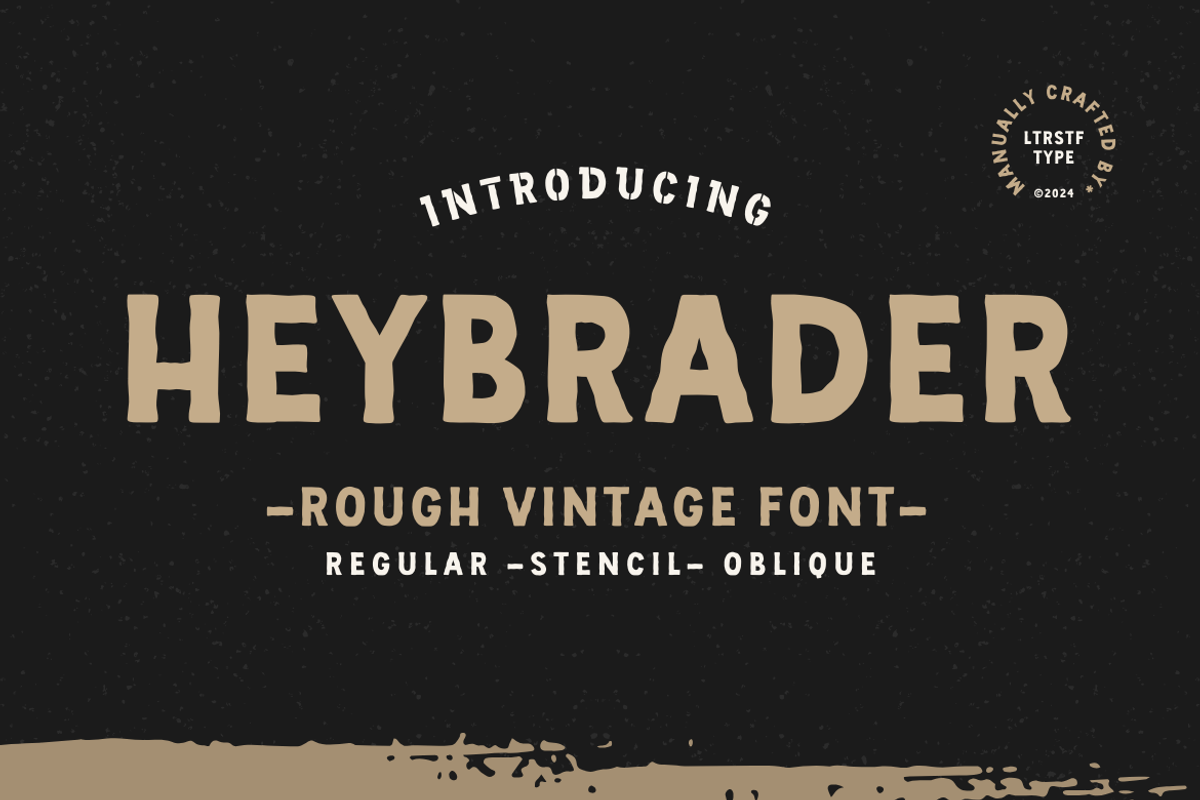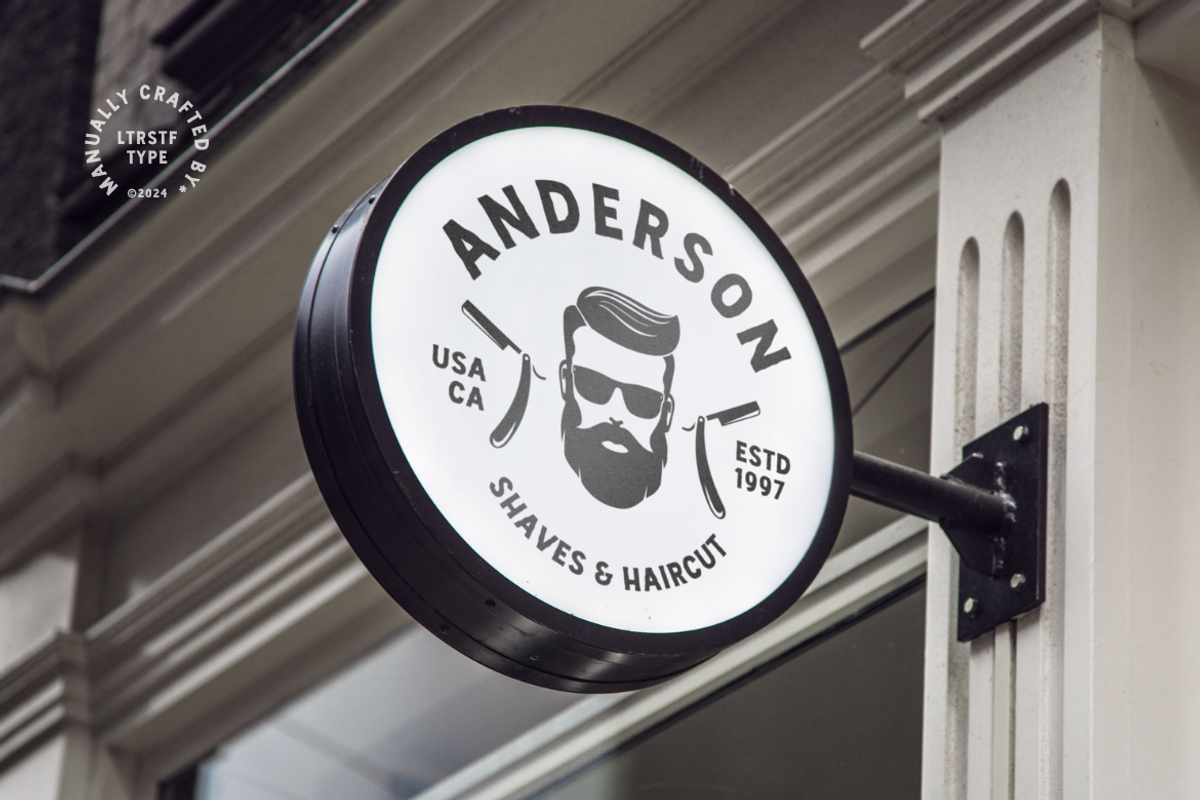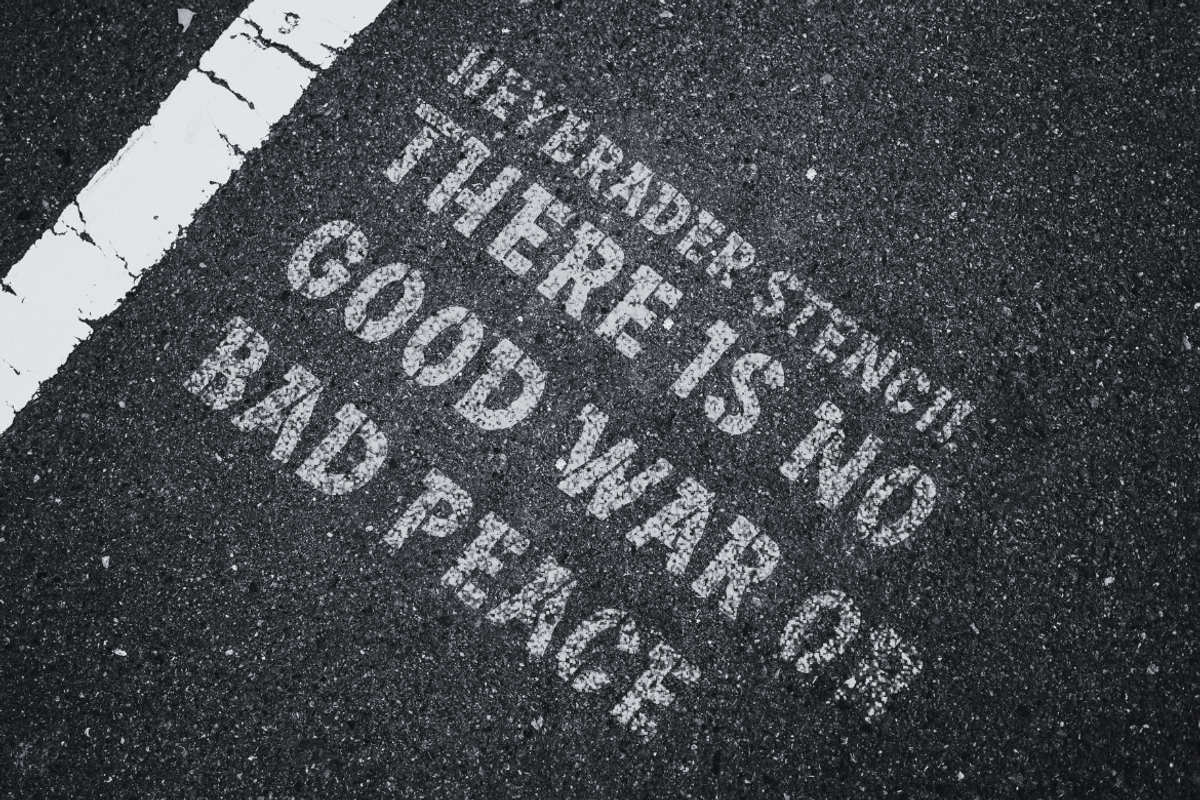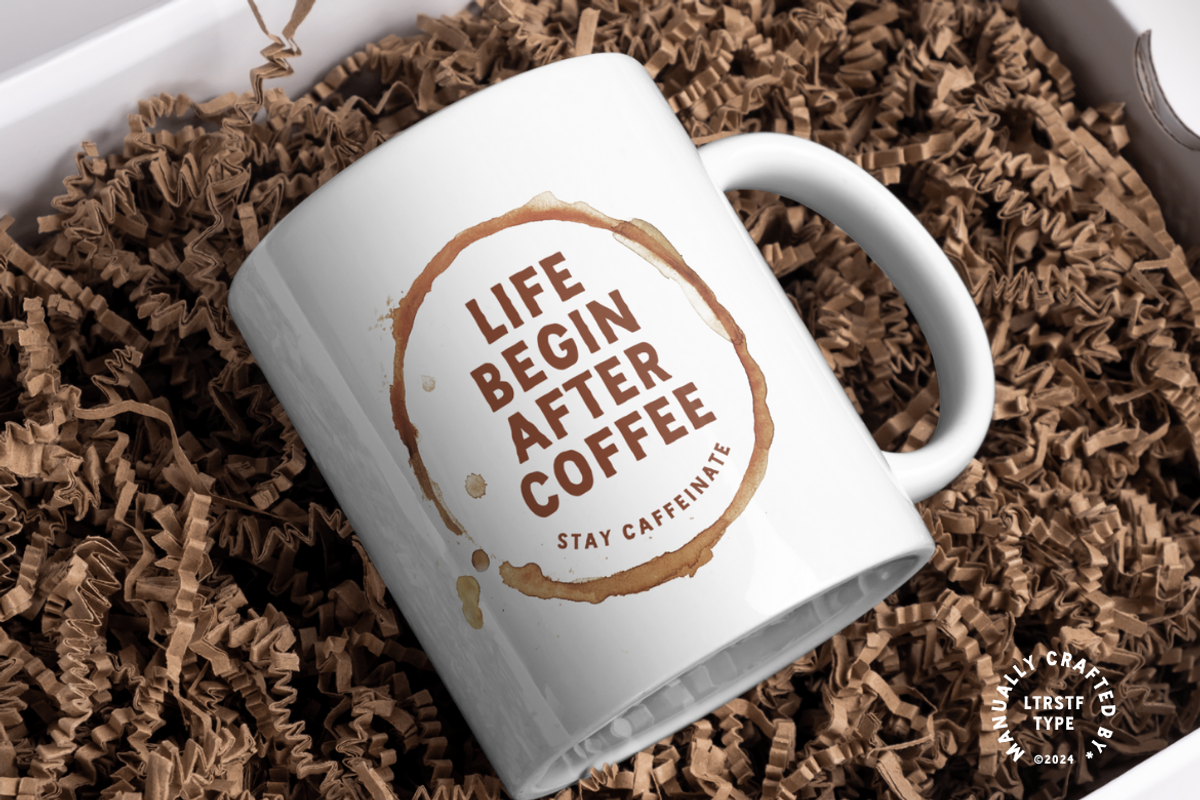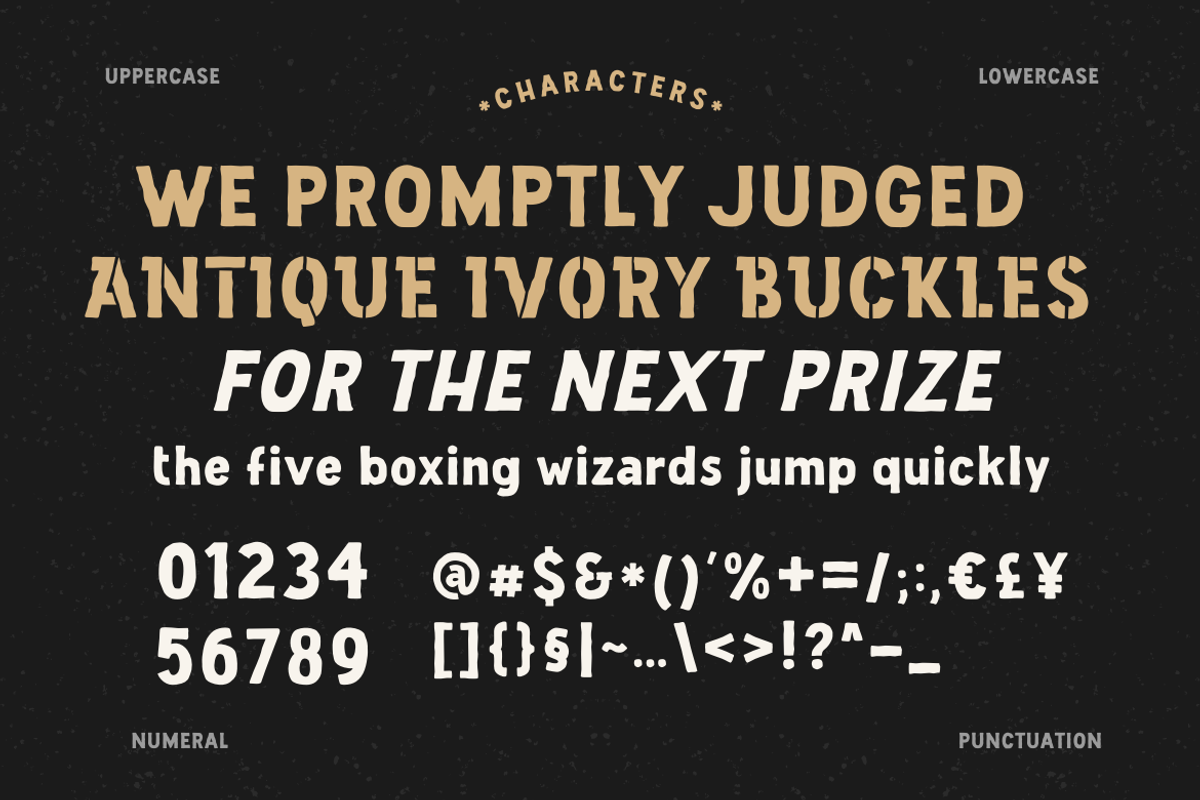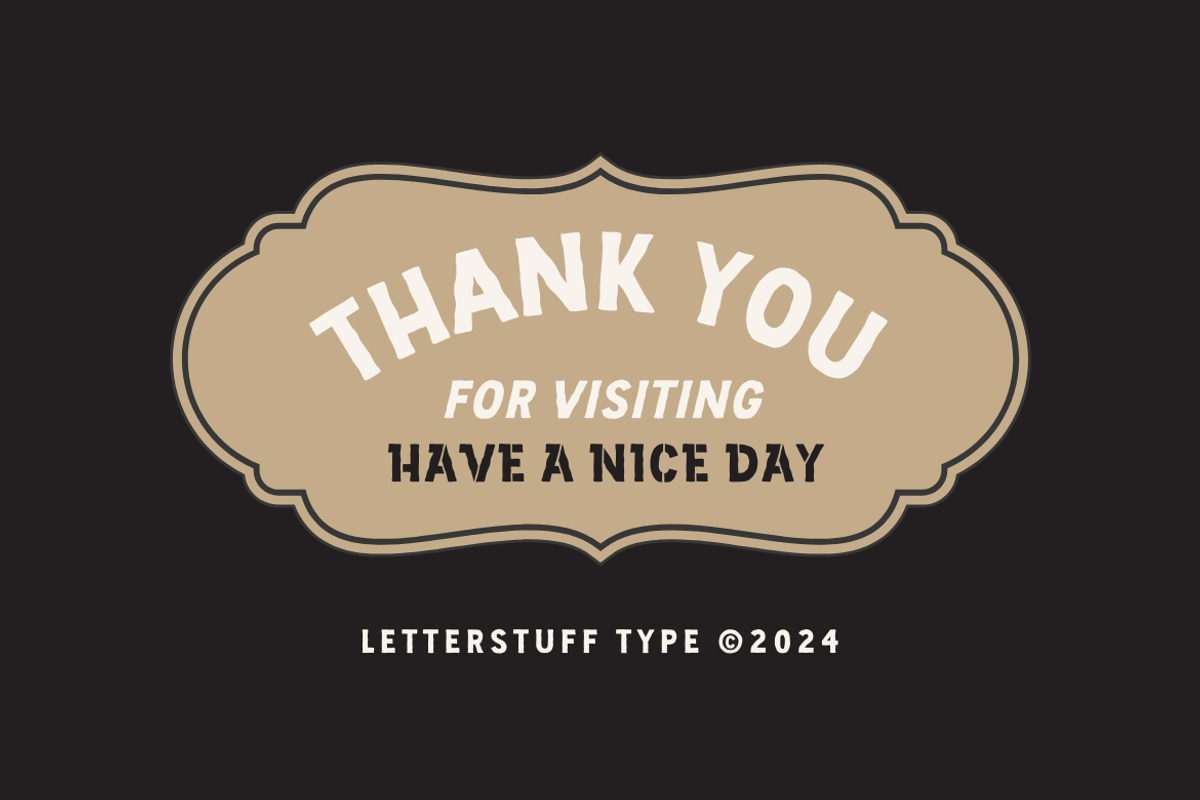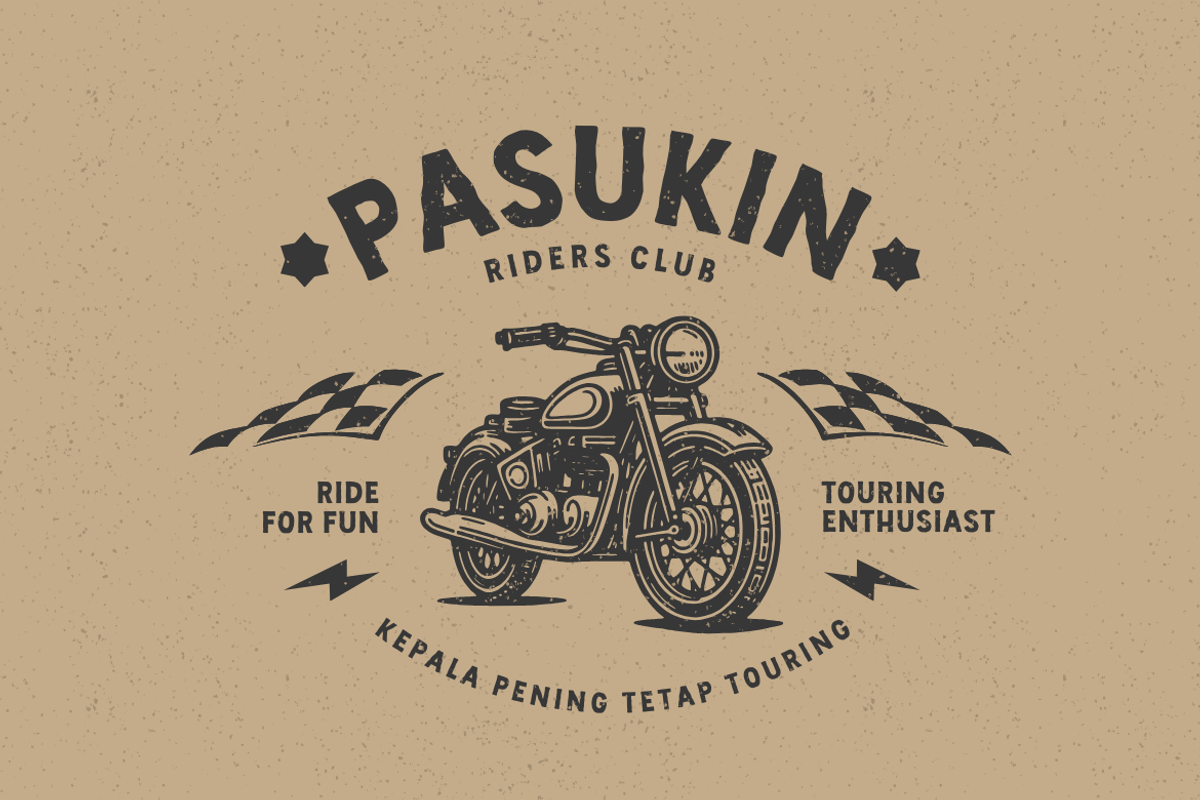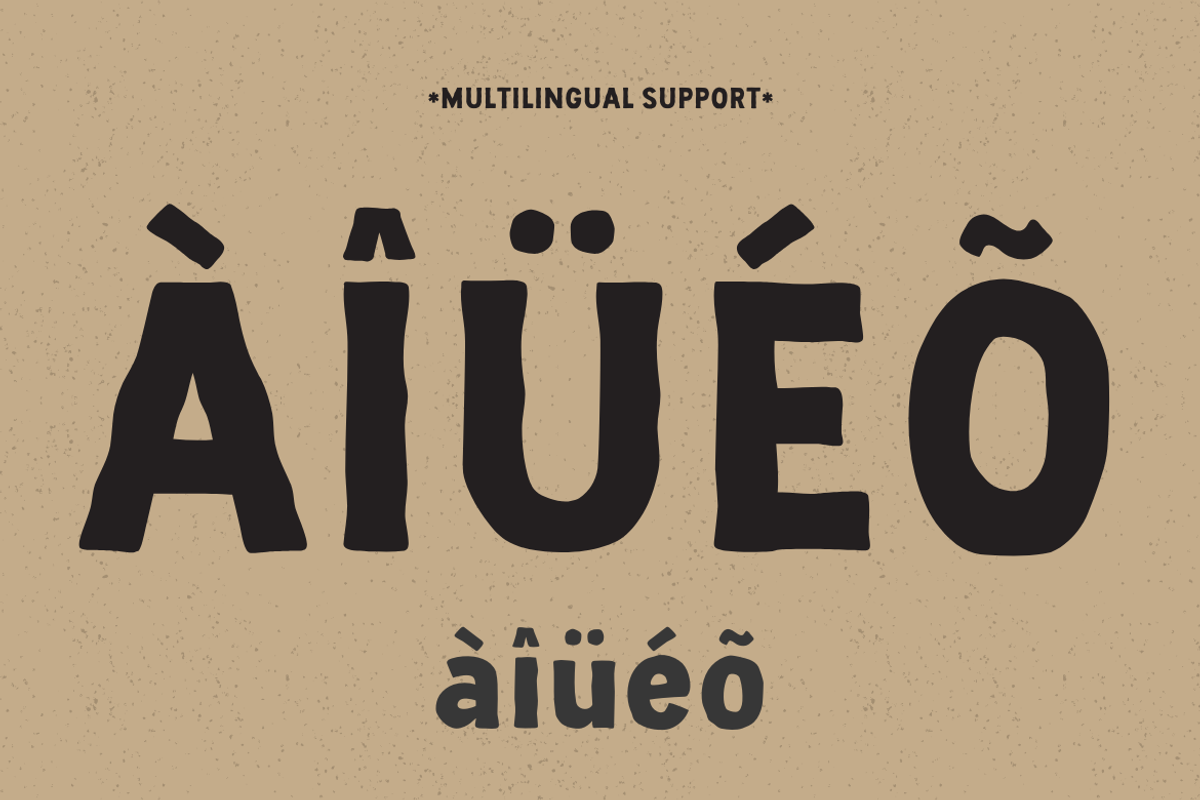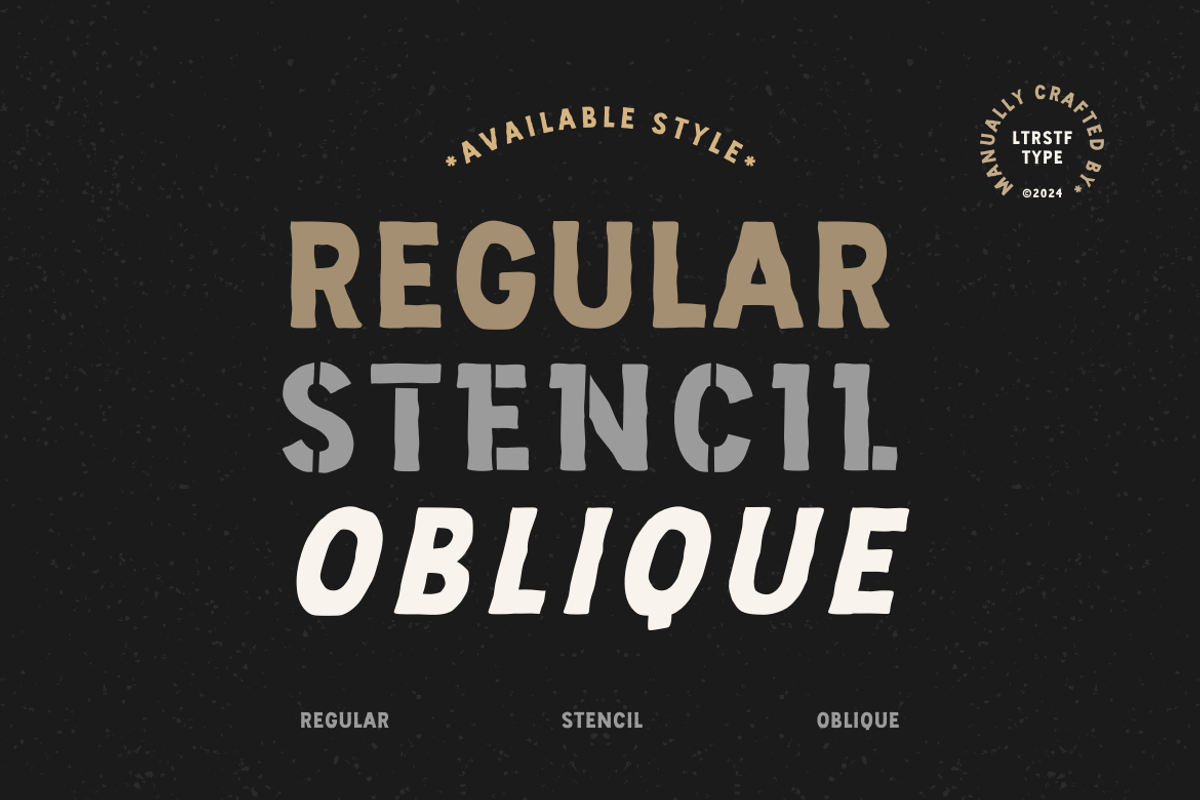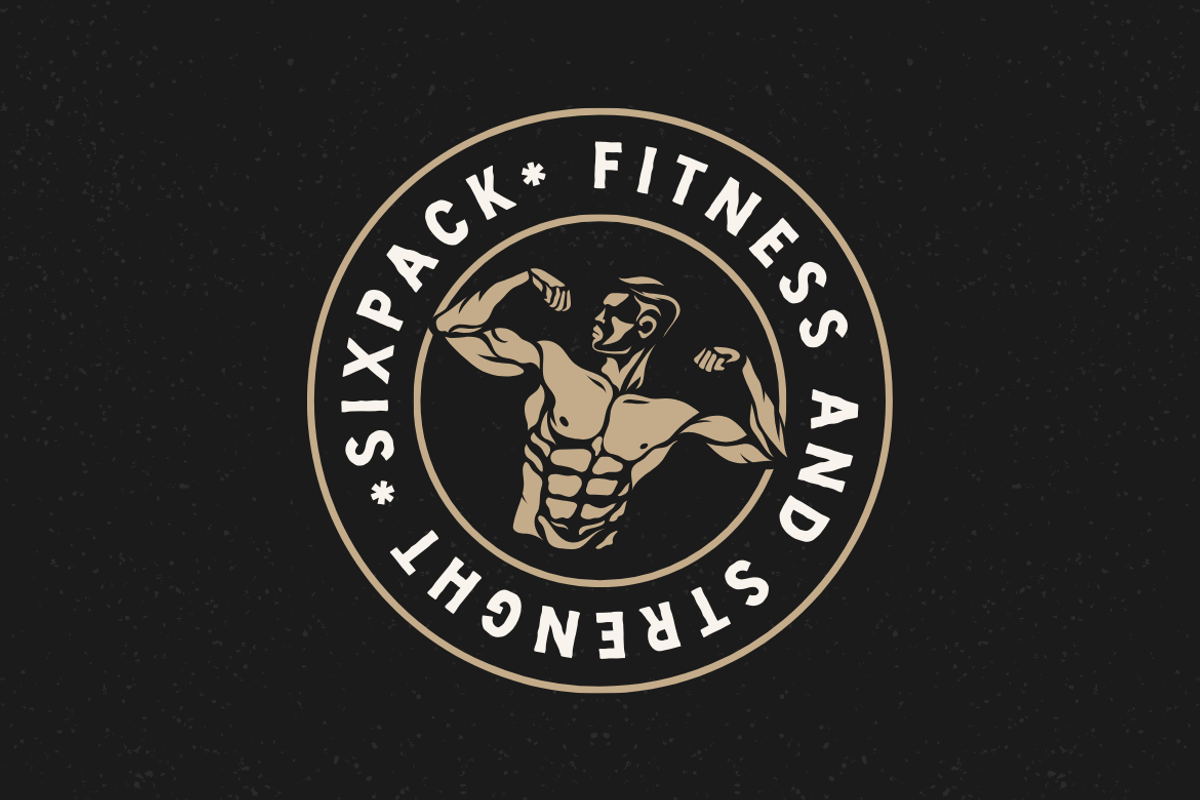
Heybrader | Vintage Font
Heybrader is a vintage-inspired font family that captures the spirit of the Wild West. With its bold, angular strokes and distinctive letterforms, Heybrader evokes the rugged charm of a bygone era. This versatile font supports a wide range of languages, making it suitable for a variety of design projects.
Available in three stylish variations : Regular, Oblique, and Stencil. Heybrader offers flexibility and creativity. Whether you’re designing a retro-themed poster, a western-inspired logo, or a vintage-style website, Heybrader is the perfect choice. Its OTF and WOFF formats ensure compatibility across various platforms and devices.